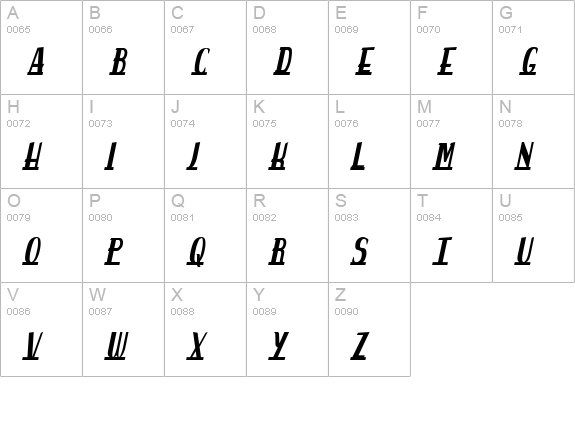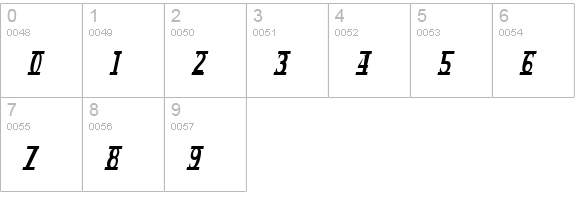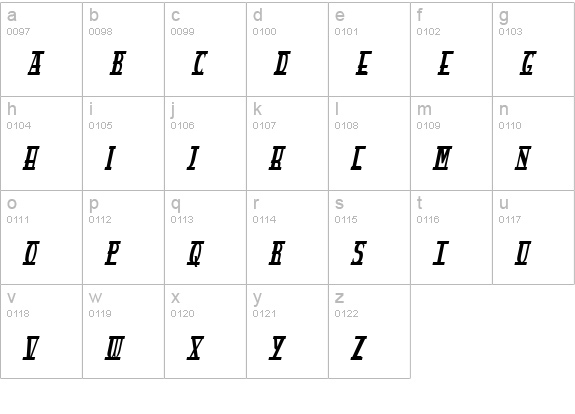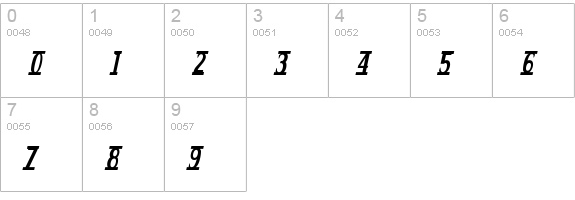
spanky's bungalow italico Font Details
Spanky's Bungalow Italico font is a stunning typeface that exudes elegance and sophistication. With its slender and graceful letterforms, it adds a touch of refinement to any design project. The unique italicized style of this font gives it a sense of movement and dynamism, making it perfect for adding a sense of energy to your designs. But what truly sets Spanky's Bungalow Italico font apart is that it is available for free! Yes, you read that right. This remarkable font can be freely downloaded at FontsMarket.com, allowing you to enhance your creative endeavors without any cost. Whether you are a professional designer or an aspiring artist, this font offers you the opportunity to add a touch of class to your work, without having to worry about breaking the bank. The versatility of Spanky's Bungalow Italico font is evident in its ability to seamlessly adapt to various design projects. From elegant wedding invitations to sleek logos, from stylish posters to sophisticated branding materials, this font effortlessly elevates the visual aesthetics of any composition. Its legibility and clear letterforms ensure that your message is delivered with utmost clarity and professionalism. The attention to detail in Spanky's Bungalow Italico font is truly remarkable. Each letter has been meticulously crafted, with precise curves and lines that create a harmonious balance. The subtle slant of the italicized style adds a touch of playfulness and character, making it a font that stands out from the crowd. So, whether you are a graphic designer in need of a versatile font for your next project or an individual looking to add a touch of elegance to your personal creations, Spanky's Bungalow Italico font is the perfect choice. And the best part? It's free! Head over to FontsMarket.com and download this exceptional font today. Elevate your designs, add a touch of sophistication, and let your creativity soar with Spanky's Bungalow Italico font.